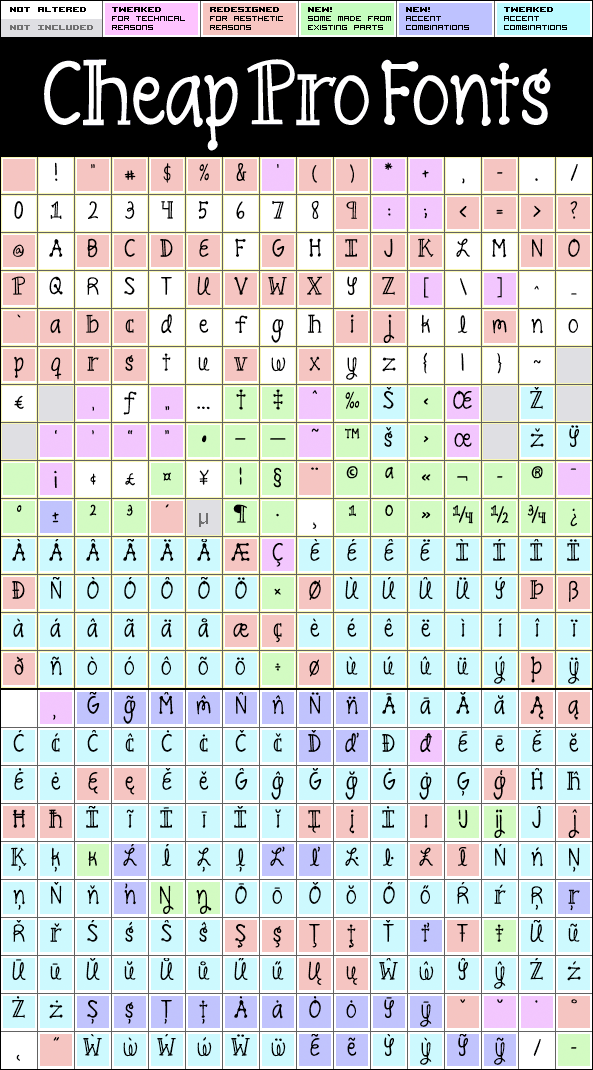
Pineapple Delight Pro
Pineapple Delight Pro by Kimberly Geswein
376 glyphs!
(321 in original)
624 class kernpairs
= 11570 kerning pairs
(none in original)
This font has a whimsical mix of four kinds of handwritten lettering: plain, looped, blotched and stylish double lined. The playful letter mixture really livens up the text. Cute. Perfect for scrapbooking :)
Pineapple Delight Pro is a professionally reworked font that contains an extended character set for setting text in 65 languages requiring more than the basic A-Z!